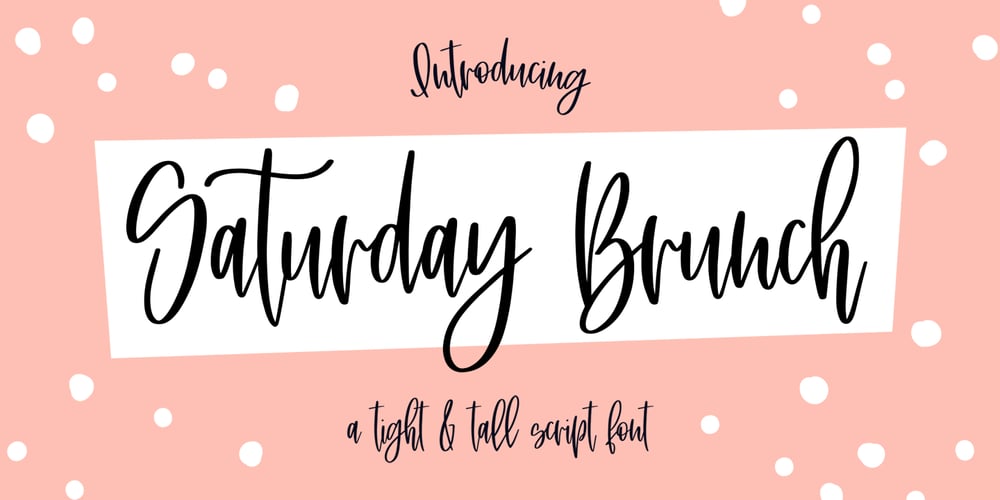
Saturday Brunch Font Family was designed by Rachel White and published by Rachel White Art. Saturday Brunch contains 1 styles and family package options. Saturday Brunch is a smooth script. It fits into tight and tall places, has big loops, and lots of attitude. Saturday Brunch has a set of alternate lowercase letters with no tails (which are coded to work with tricky letters like x and z who don’t play well with tails), a bunch of double letter ligatures, and a few fun alternates, like t’s with long swooping crossbars, and 3 alternate ampersands so you can pick the perfect style for your project.